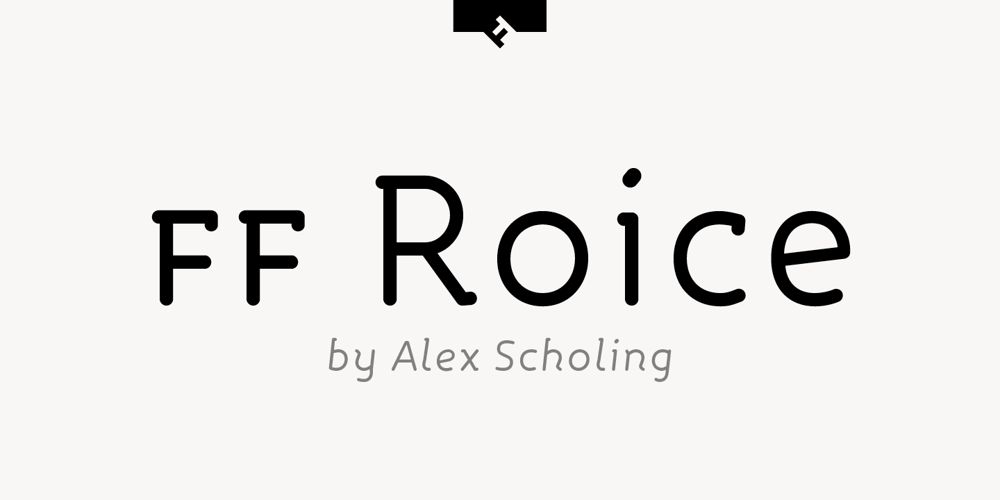
FF Roice Font Family was designed by Alex Scholing and published by FontFont. FF Roice contains 10 styles and family package options. Dutch type designer Alex Scholing created this script FontFont in 2003. The family has 10 weights, ranging from Light to Black (including italics) and is ideally suited for advertising and packaging, festive occasions, logo, branding and creative industries as well as small text. FF Roice provides advanced typographical support with features such as small capitals, alternate characters, case-sensitive forms, fractions, super- and subscript characters, and stylistic alternates. It comes with a complete range of figure set options – oldstyle and lining figures, each in tabular and proportional widths.